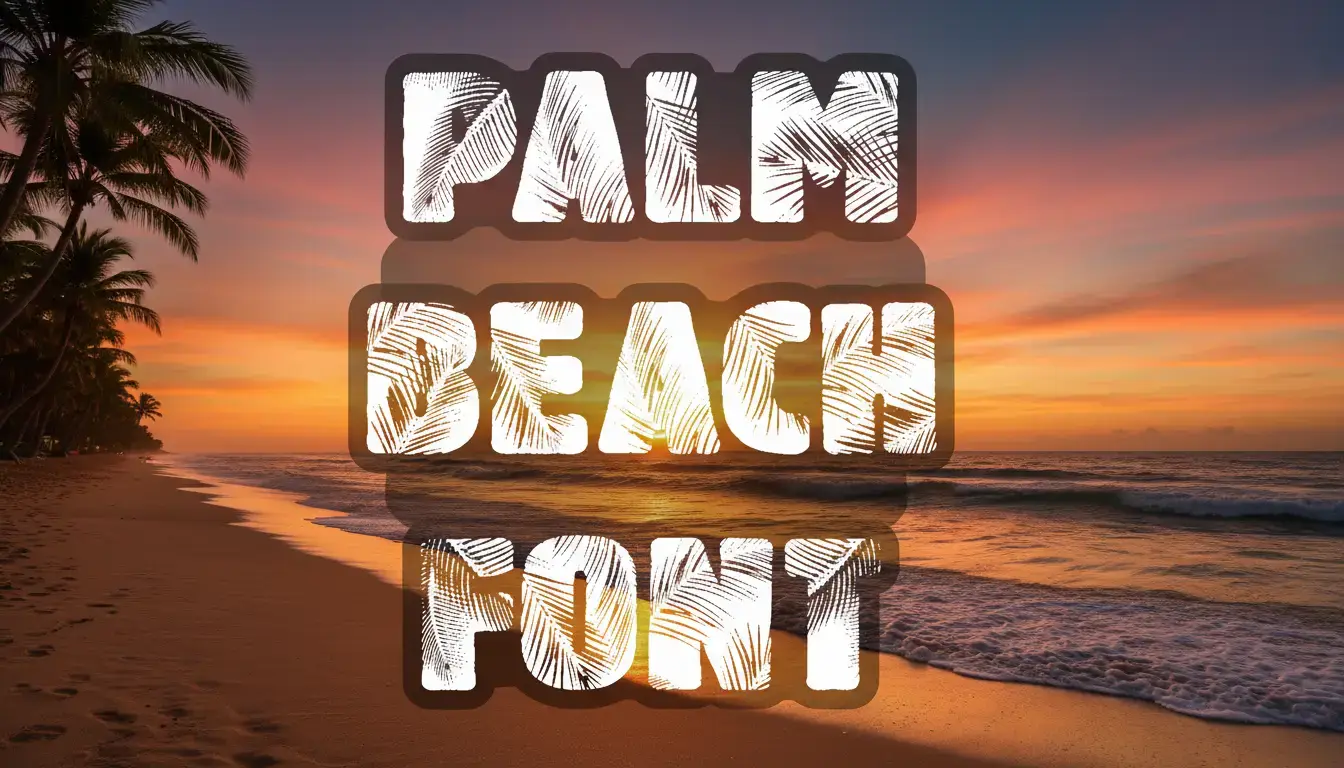
PALM BEACH FONT
PALM BEACH is a fancy font made by imagex. Bold and full of character, it's built to stand out rather than blend in. You can download it for free and test it with your own words in the preview above.
With complete upper and lowercase letters and all ten digits, PALM BEACH is ready for real wording, not just a single headline. Everyday marks like &, !, ? and @ are there too. Thanks to its accented letters, it also works for Spanish, French, German, Portuguese and Italian, not just English.
Designers usually reach for fonts like PALM BEACH when they're making posters, logos and eye-catching headlines. Use it for one standout word or headline and let simpler fonts handle the rest.
Yes. PALM BEACH includes the accented letters needed for Spanish, French, German, Portuguese and Italian, so it works for more than just English.